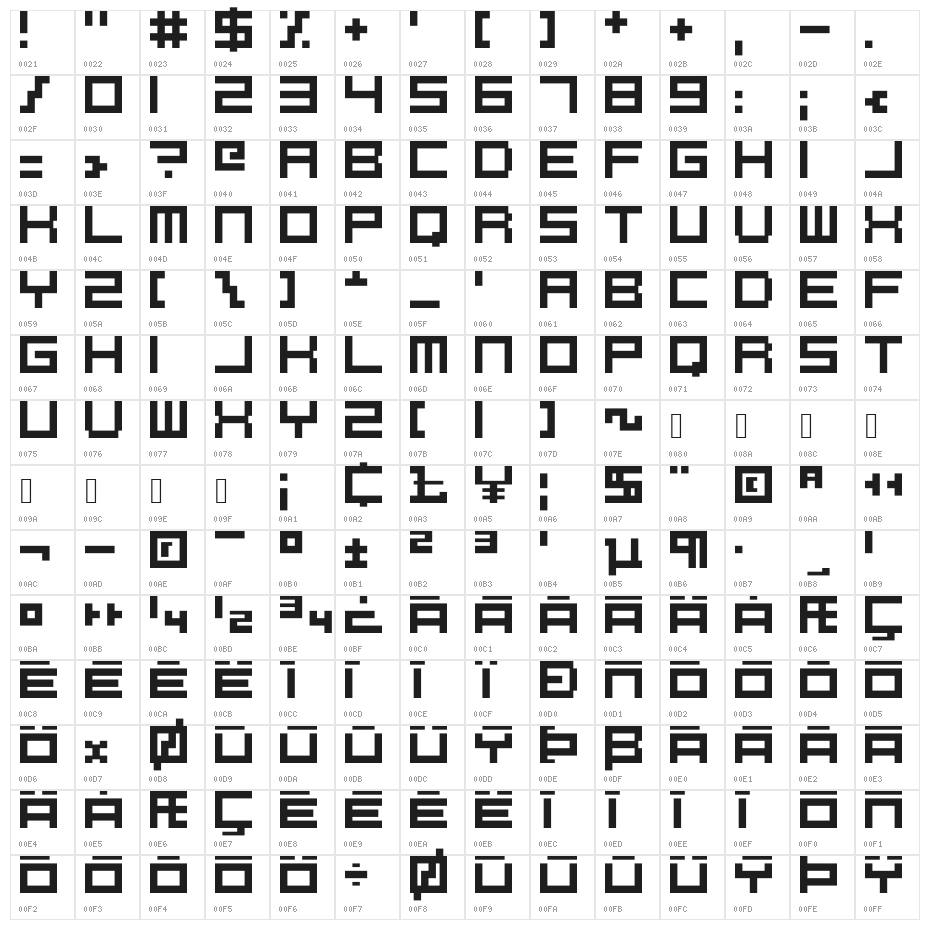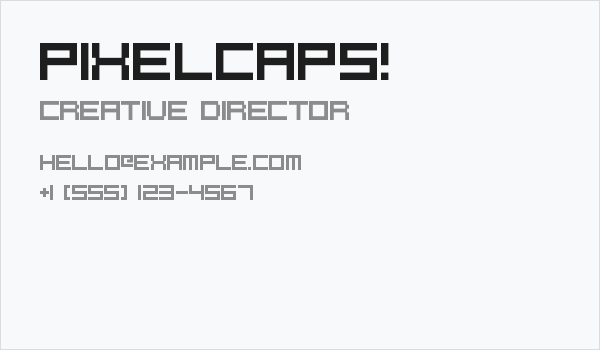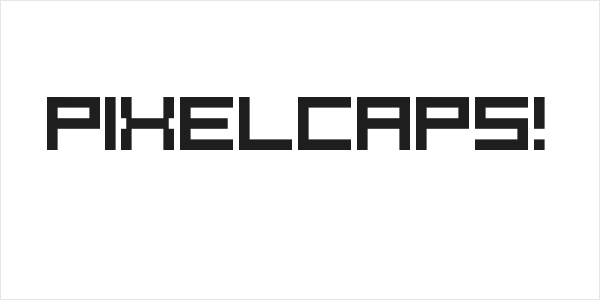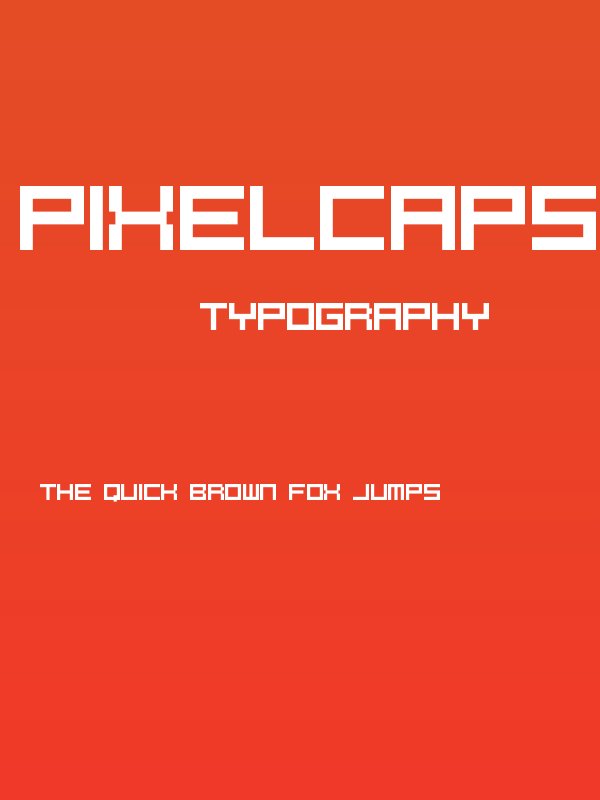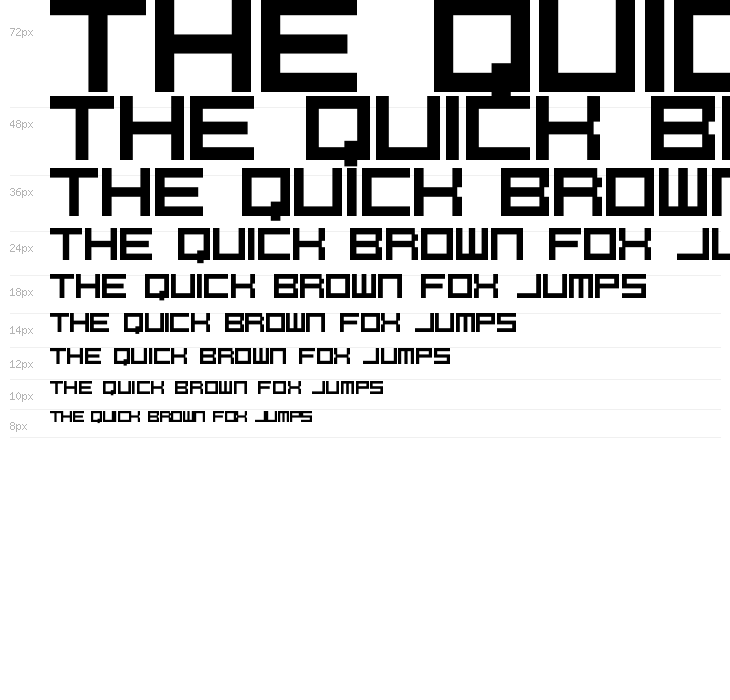
PixelCaps! Font
| Gesamtstil | Retro, Digital |
| Vorgeschlagene Projekte | Ideal for retro video game graphics, tech-themed posters, digital art projects, and any design requiring a nostalgic digital feel. |